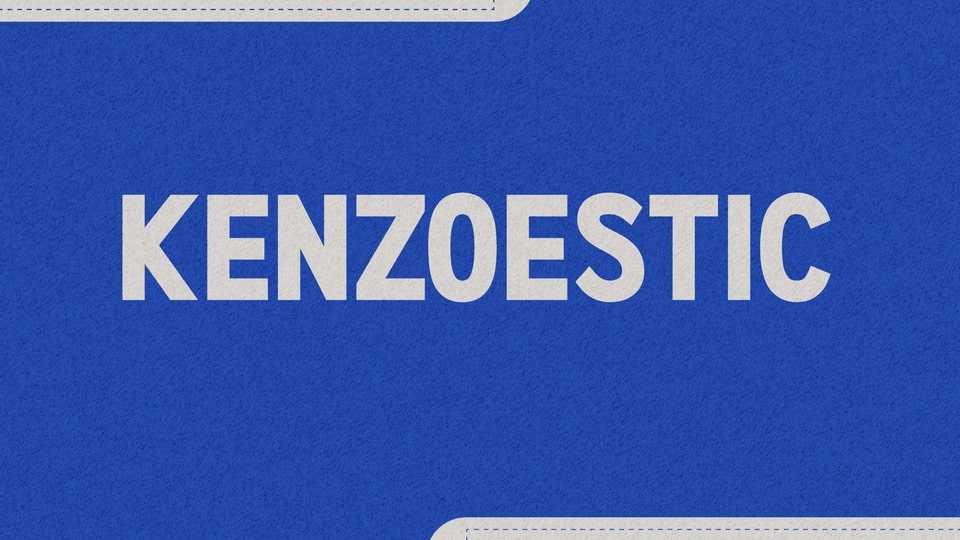
Download Kenzoestic font, the exquisite typeface, an embodiment of power and minimalism. With 5 distinct weights, this sans serif collection seamlessly combines modernity and luxury.
Designer: Nandesign Studio